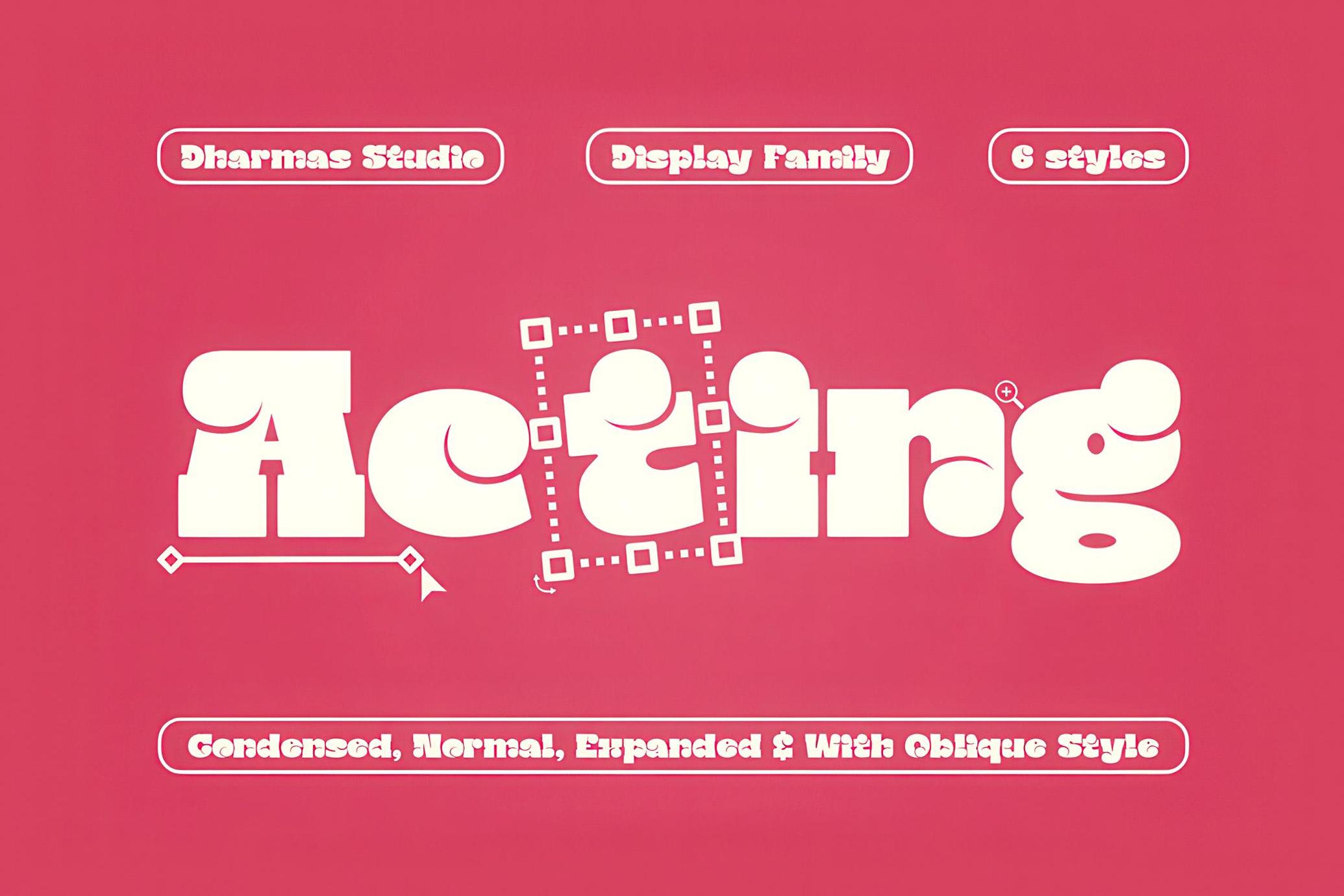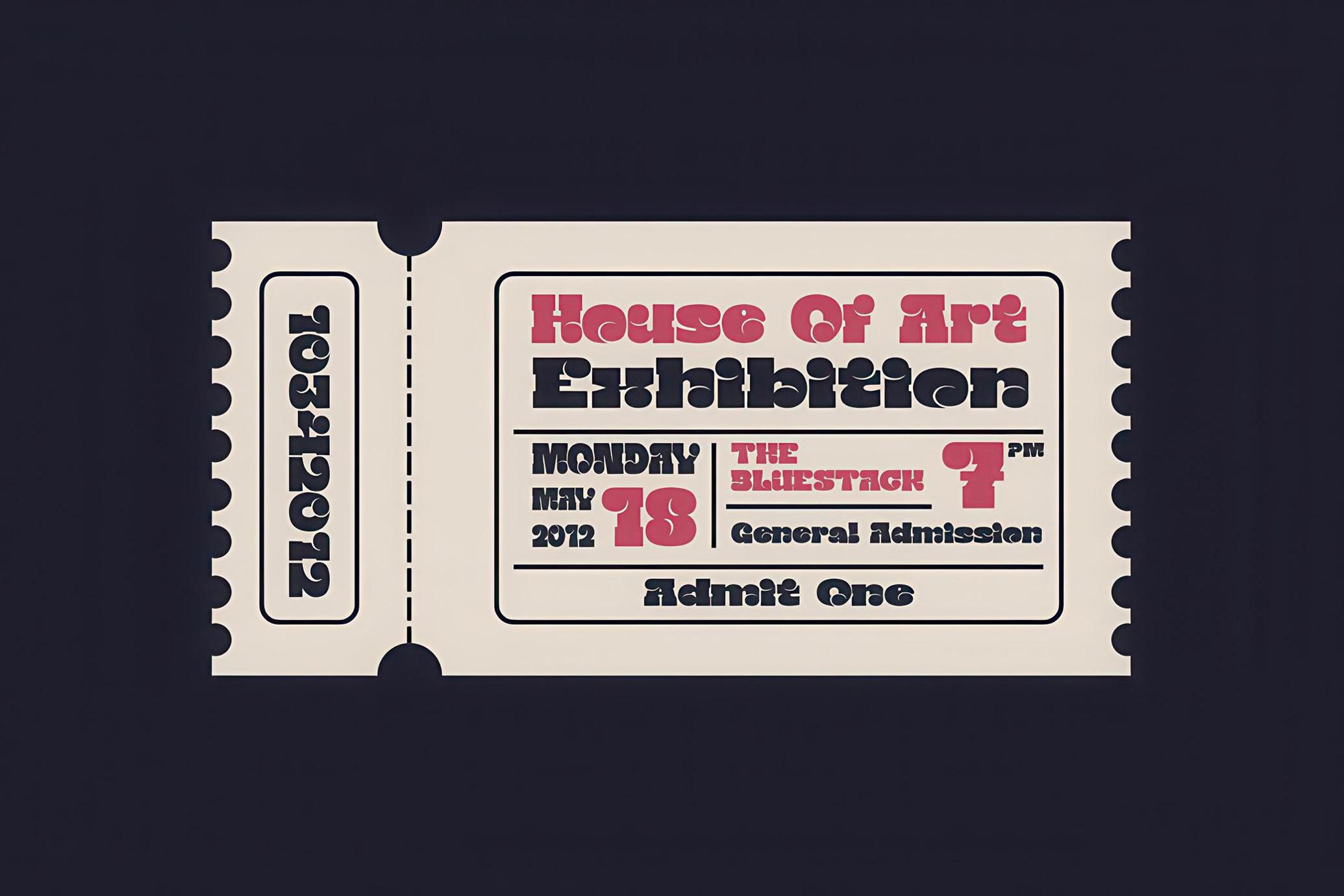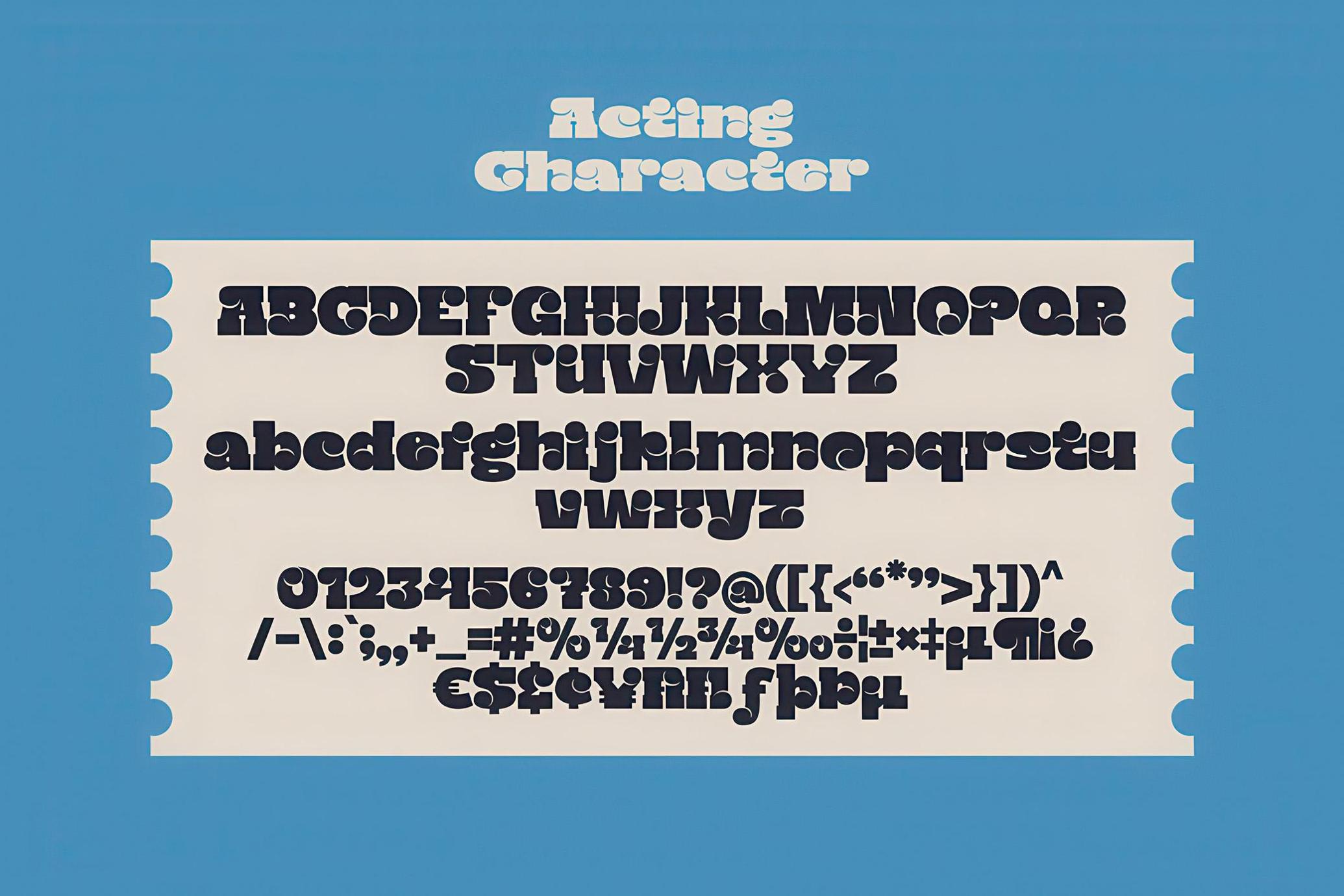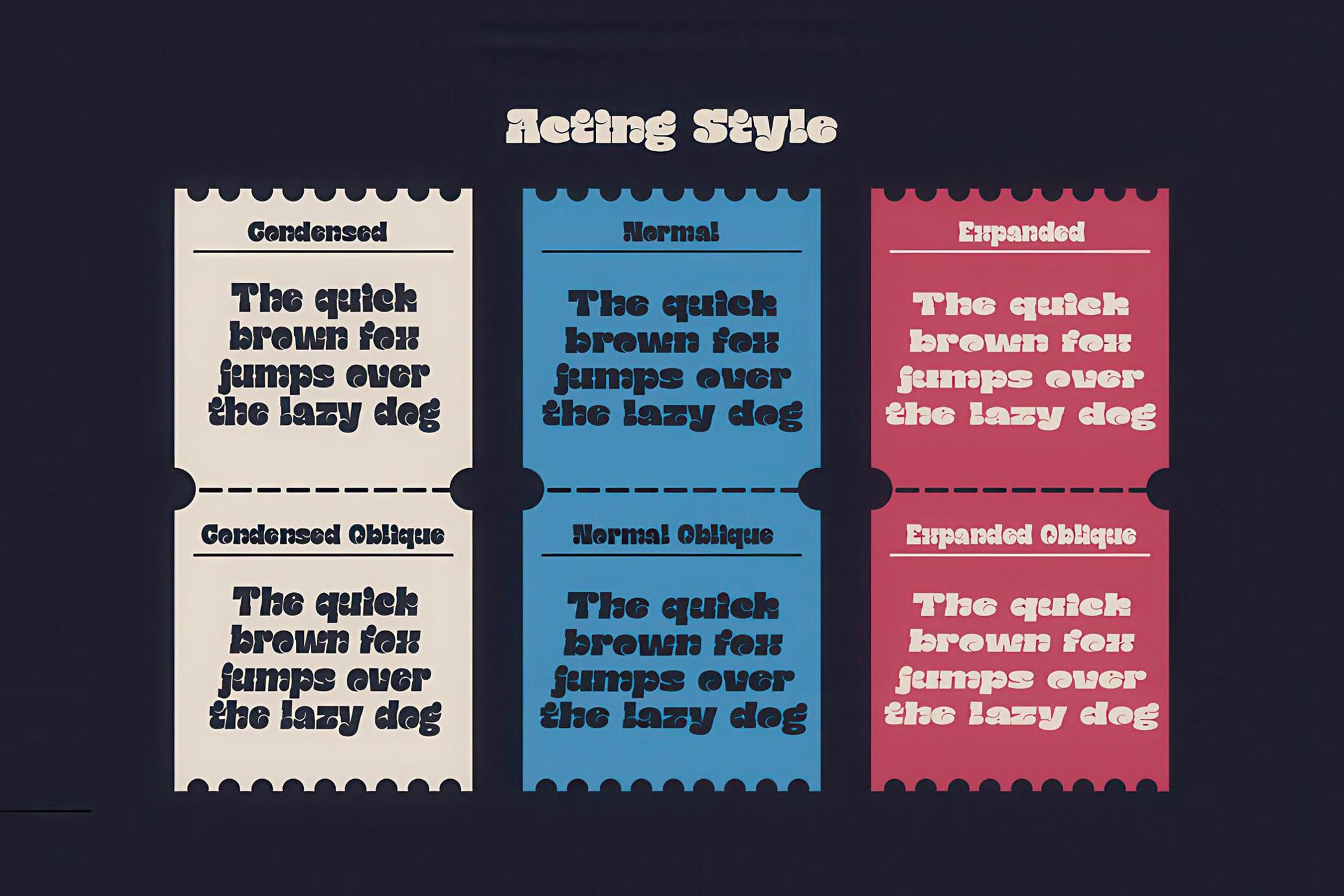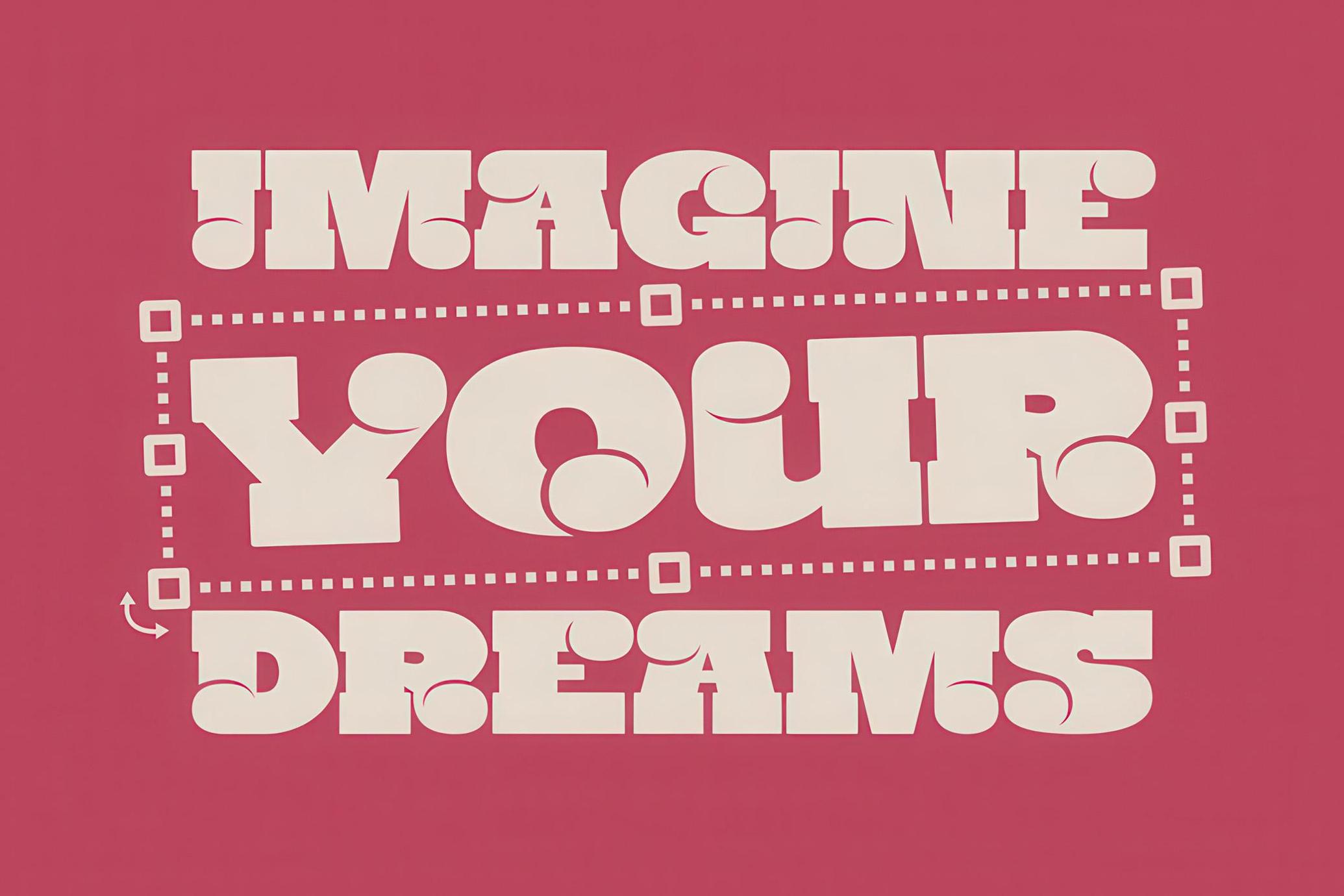
Acting - Slab Rounded Family
What sets Acting apart is its distinctive circular elements within each letter, adding a unique touch while maintaining clean and balanced shapes. With alternative glyphs, it truly comes to life.
Acting offers versatility with three widths: Condensed, Normal, and Expanded, along with a oblique version, resulting in a total of six styles. Whether you're working on branding, titles, or headlines, Acting is your perfect choice for your project!
- Unique Letterforms